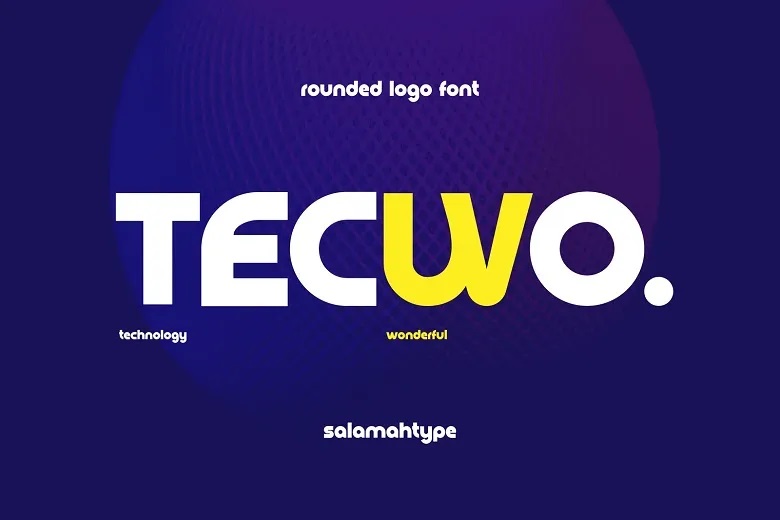
Tecwo Font
Tecwo Font is a modern rounded font which will be highly useful for emblem designs of the contemporary visual style. Regarding the design, it has sleek curves and a rather aggressive look, which is perfect for tech brands, new companies, and startups, and companies, which want to give their image a future feel. In both high-tech logo designing and creative branding, TECWO maintains a professional yet artistic approach.
Tecwo Logo Font